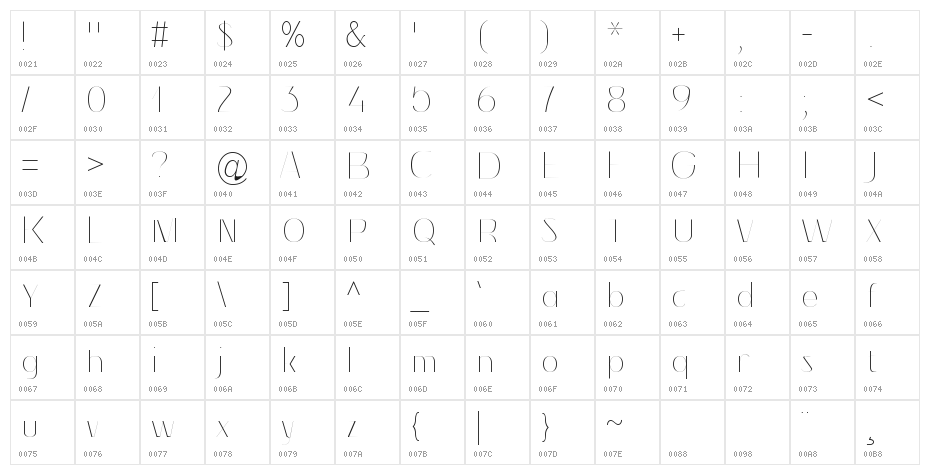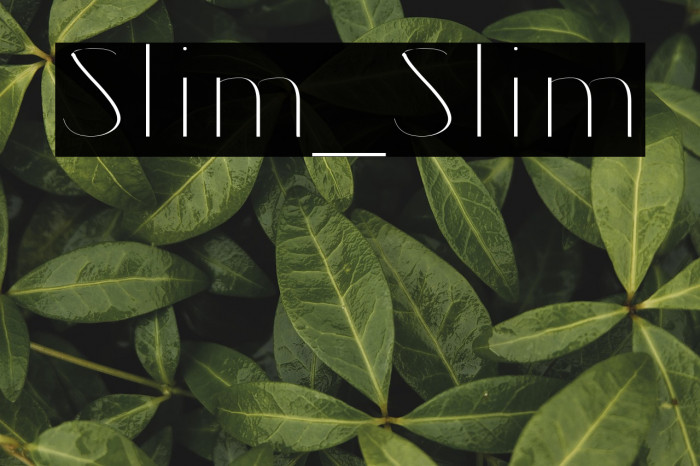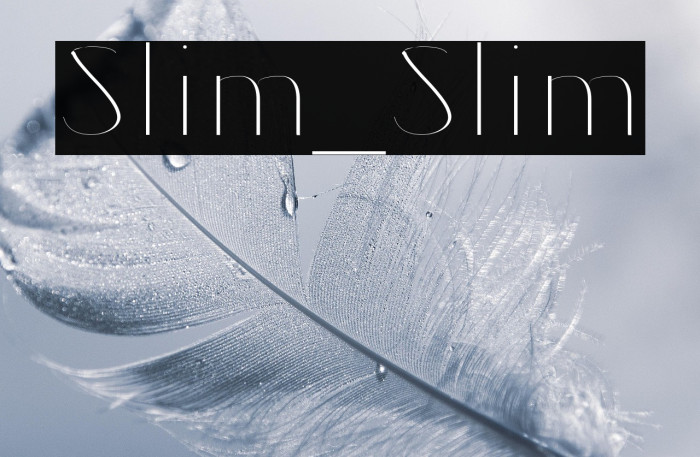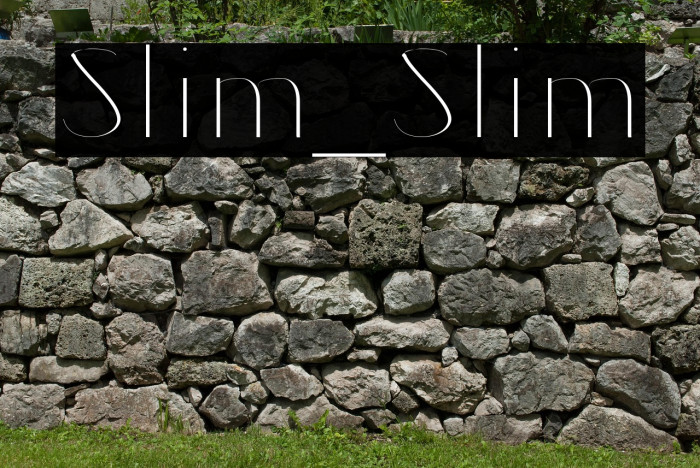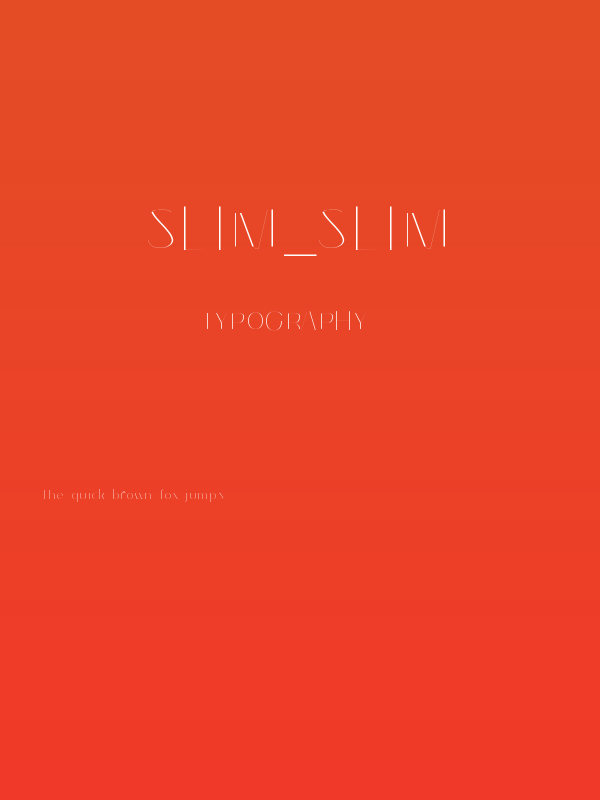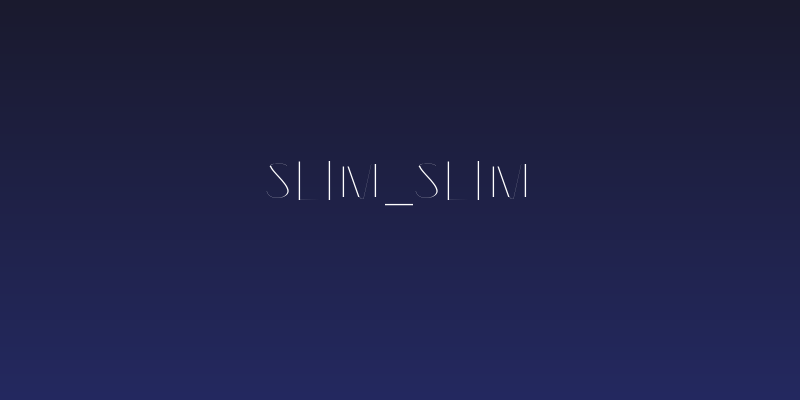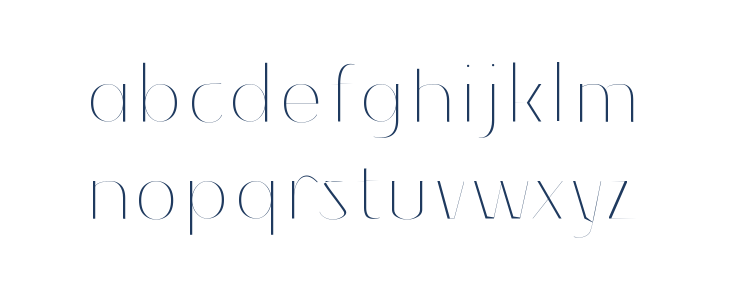
Slim_Slim Font
Slim_Slim Description
This font features a sleek and elegant design with ultra-thin strokes that give it a modern and sophisticated appearance. The characters are tall and narrow, contributing to a refined and minimalist aesthetic. The uppercase letters are particularly striking with their elongated forms, while the lowercase letters maintain a consistent style that complements the overall look. The numerals and special characters are designed to match the font's slim profile, ensuring a cohesive appearance across all text. This font's delicate lines and contemporary style make it ideal for projects that require a touch of elegance and modernity.
| Use Case | Logos, Headlines, Branding |
| Proposed Projects | Ideal for luxury branding, fashion magazines, minimalist logos, and high-end product packaging. |